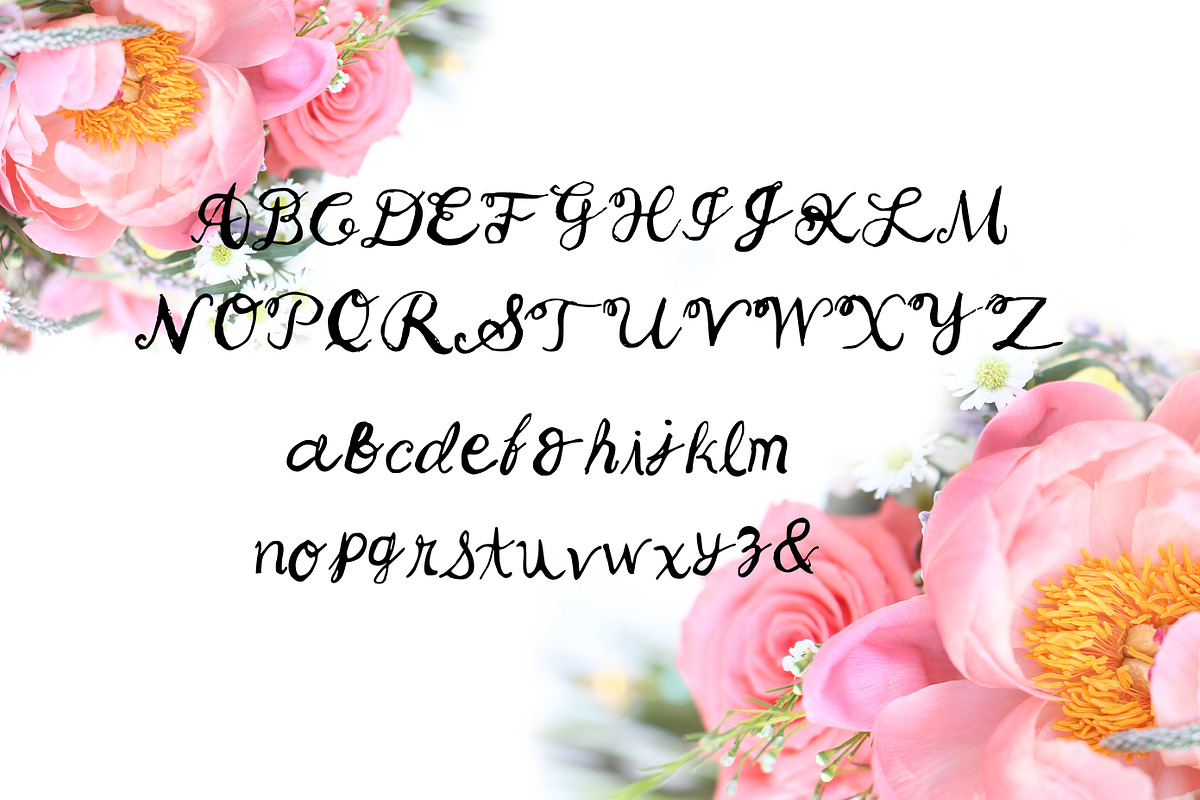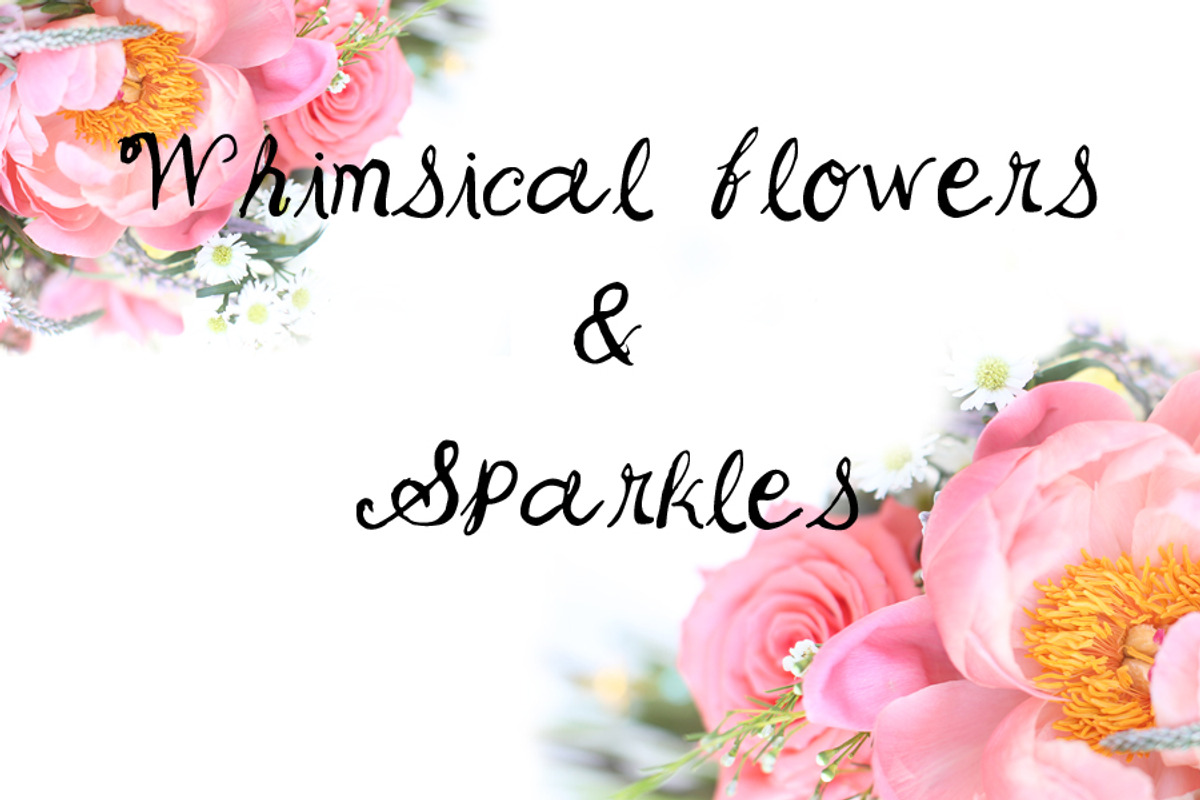
Songbird Whimsical Font By Kay
Songbird Whimsical Font By Kay by Kay, a Script Font by Grandmillennial Lane is a font selected for branding, posters, packaging, typography.
Why Songbird Whimsical Font By Kay is worth a look
Songbird Whimsical Font By Kay by Kay, a Script Font by Grandmillennial Lane fits naturally into Branding, posters, packaging, typography.